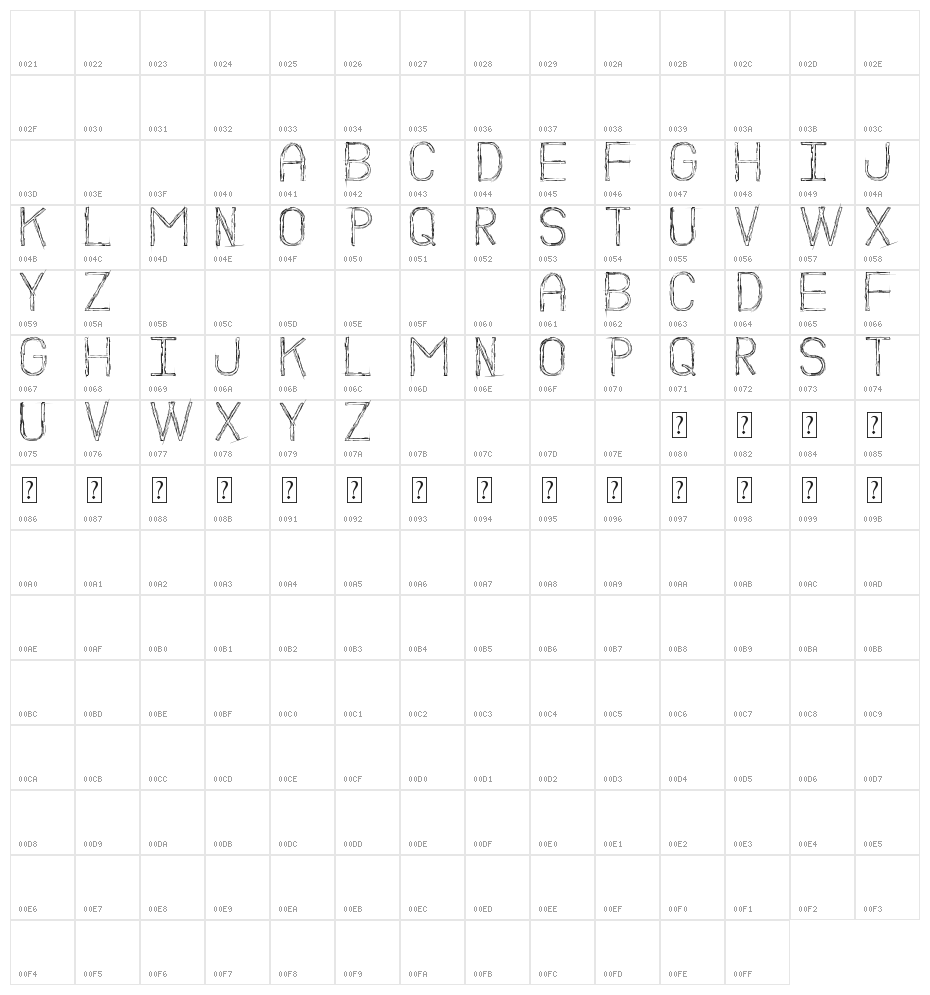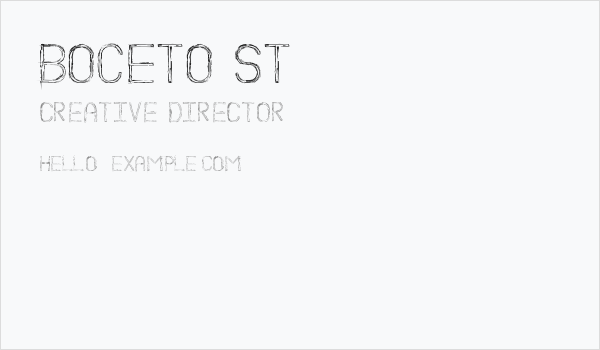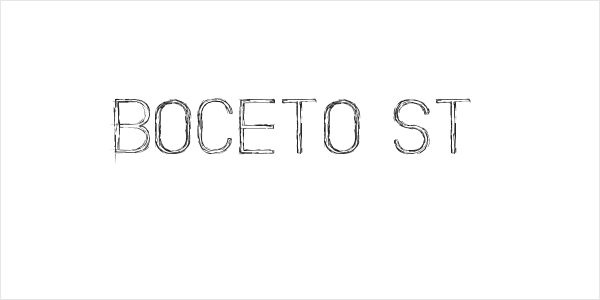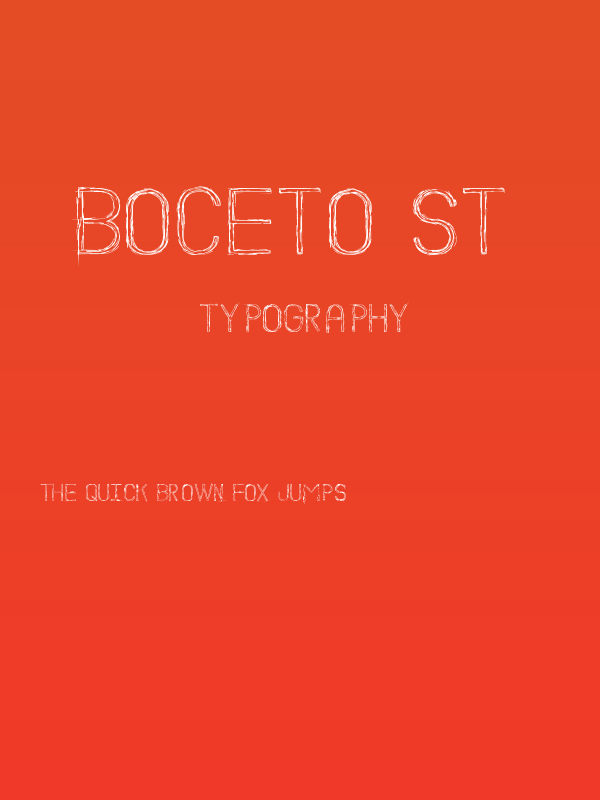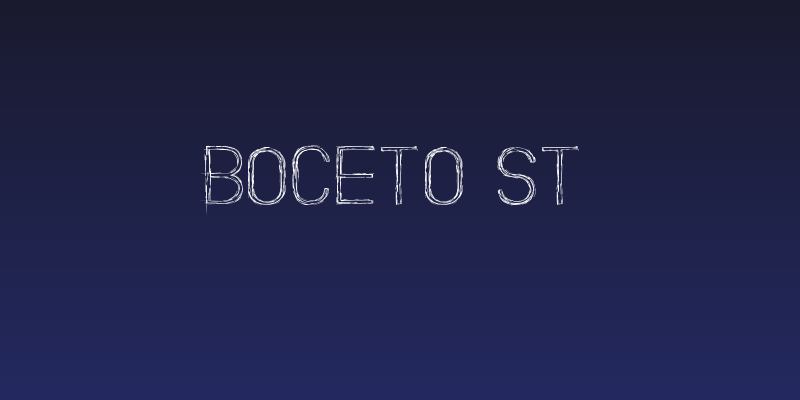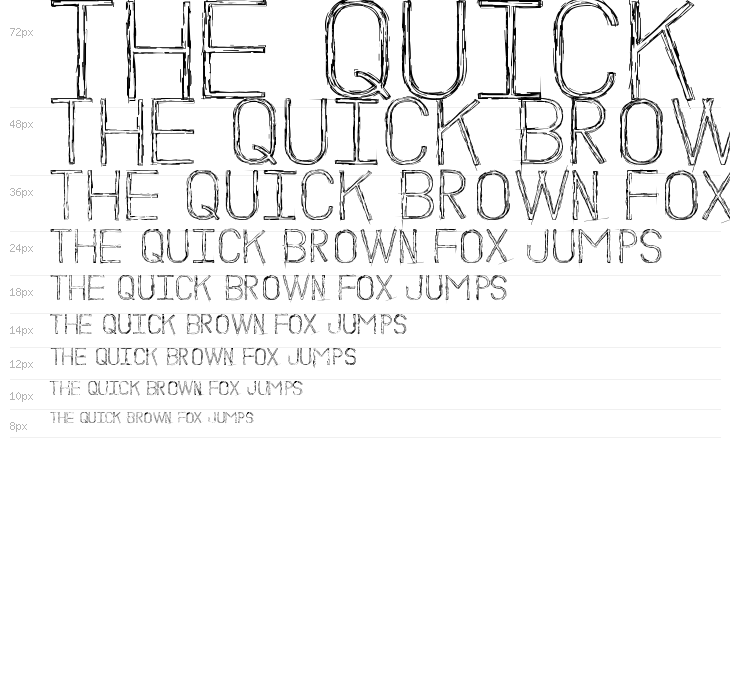
Boceto St Font
Boceto St Description
This font features a unique, sketch-like appearance with rough, hand-drawn lines that give it a textured and artistic feel. The characters are uppercase and maintain a consistent height, with slight variations in line thickness that add to its handcrafted aesthetic. The overall look is reminiscent of pencil sketches, providing a raw and unfinished style that is both modern and artistic. This font is ideal for creative projects where a personal touch is desired, such as art posters, album covers, or branding for artistic ventures. Its distinctive style makes it stand out, offering a blend of creativity and informality.
| Overall Style | Artistic, Modern |
| Proposed Projects | Art posters, album covers, creative branding, and artistic projects. |